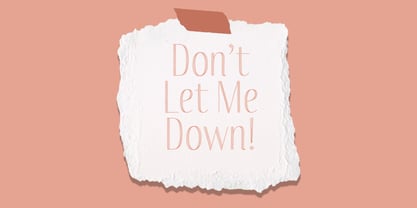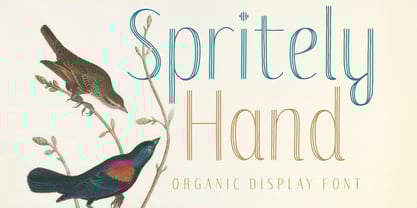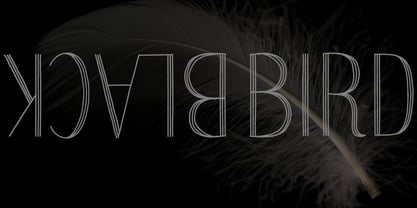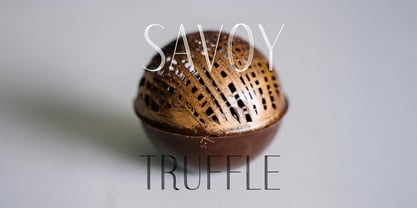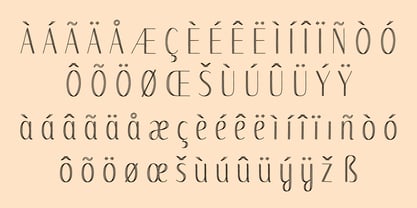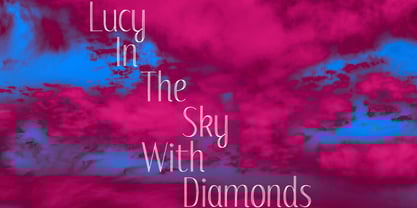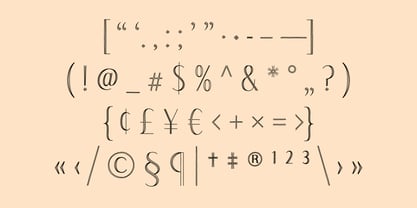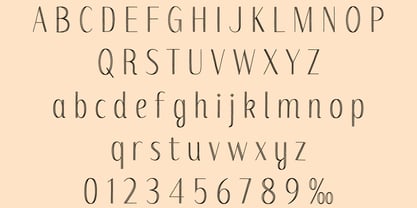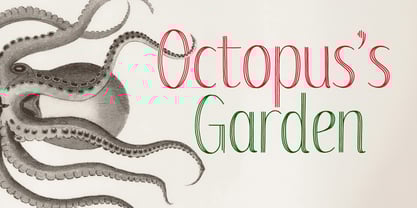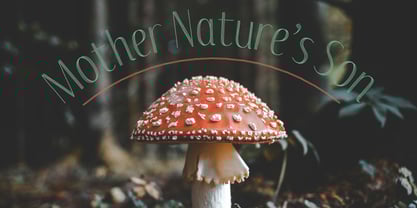
Spritely Hand
The Spritely Hand Font Family was designed by Kevin Foley and published by Kevin Foley Fonts. Spritely Hand contains 1 styles. More about this family
Spritely Hand is a condensed, hand-drawn display font with elegant shapes that feel warm and organic—sophisticated but never stiff. It was born from a sketching method I used while developing Spritely—using parallel strokes to simulate the thicks and thins of pointed-pen calligraphy. The immediacy and warmth of those shapes stayed with me, and I've preserved that organic energy in the finished font. The condensed proportions work beautifully for packaging, labels, wedding stationery, and social media graphics—bringing an approachable, human touch to small business branding, boutique identities, and craft-focused projects. It includes comprehensive international character support for both print and digital applications. For a more polished look, Spritely offers a cleaner, more refined aesthetic with five weights from Light to ExtraBold—ideal for projects requiring greater typographic flexibility. Check it out here: https://www.myfonts.com/collections/spritely-font-kevin-foley-fonts/?tab=techSpecs ————————————————————————————————————————————————————————— Image credits: Unsplash: allec-gomes; florian-van-duyn; max-whitehead; olga-thelavart; the-new-york-public-library; wolfgang-hasselmann | Pexels: anntarazevich